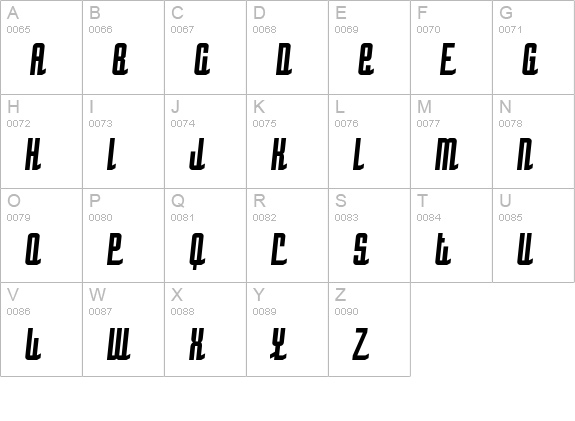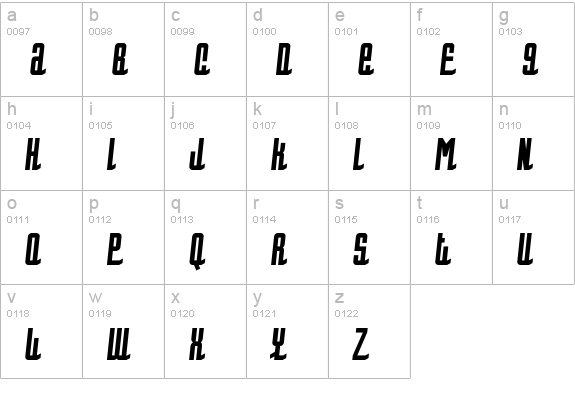
Hotrod font is a bold and dynamic typeface that exudes energy and speed. Its sleek and stylish design is perfect for projects that need a touch of modernity and edginess. With its sharp angles and strong lines, Hotrod font is sure to make a statement in any design. And the best part? Hotrod font is available for free download at FontsMarket.com. This means you can easily add this eye-catching font to your collection without breaking the bank. Whether you're working on a poster, logo, or any other creative project, Hotrod font is a fantastic choice that will help your designs stand out from the crowd. Download Hotrod font today and let your creativity rev up to new heights!